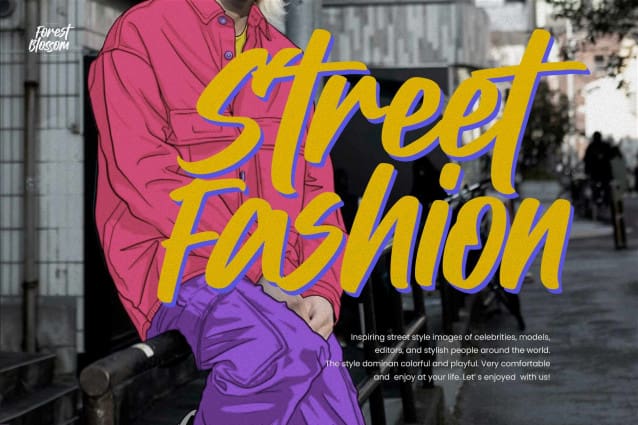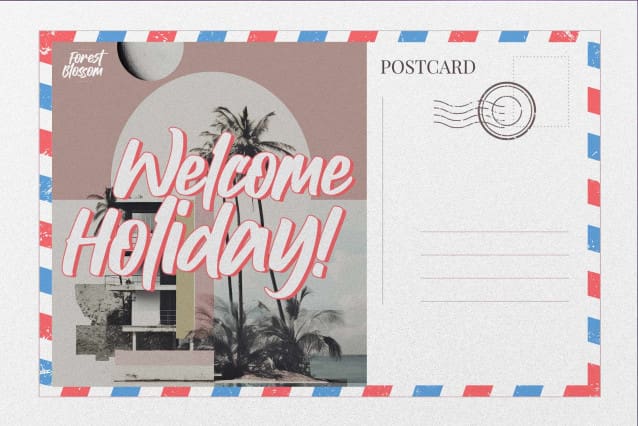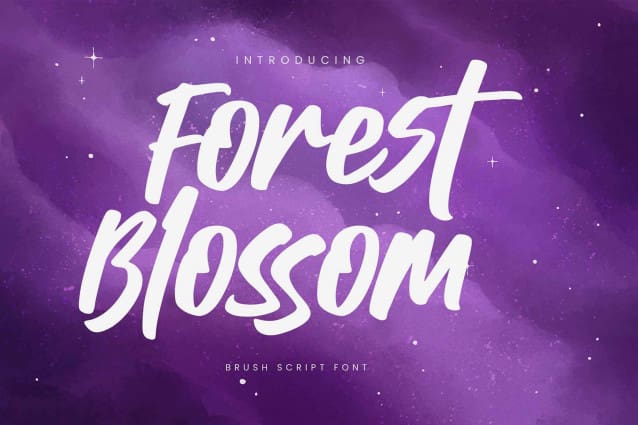
Forest Blossom Font
Forest Blossom Font is a script font, this is a handmade font with its natural and handmade, this font is perfect for making a strong statement in your designs.
Add the bold and authentic character of this Font to your next project and capture the essence of the minimalist aesthetic.